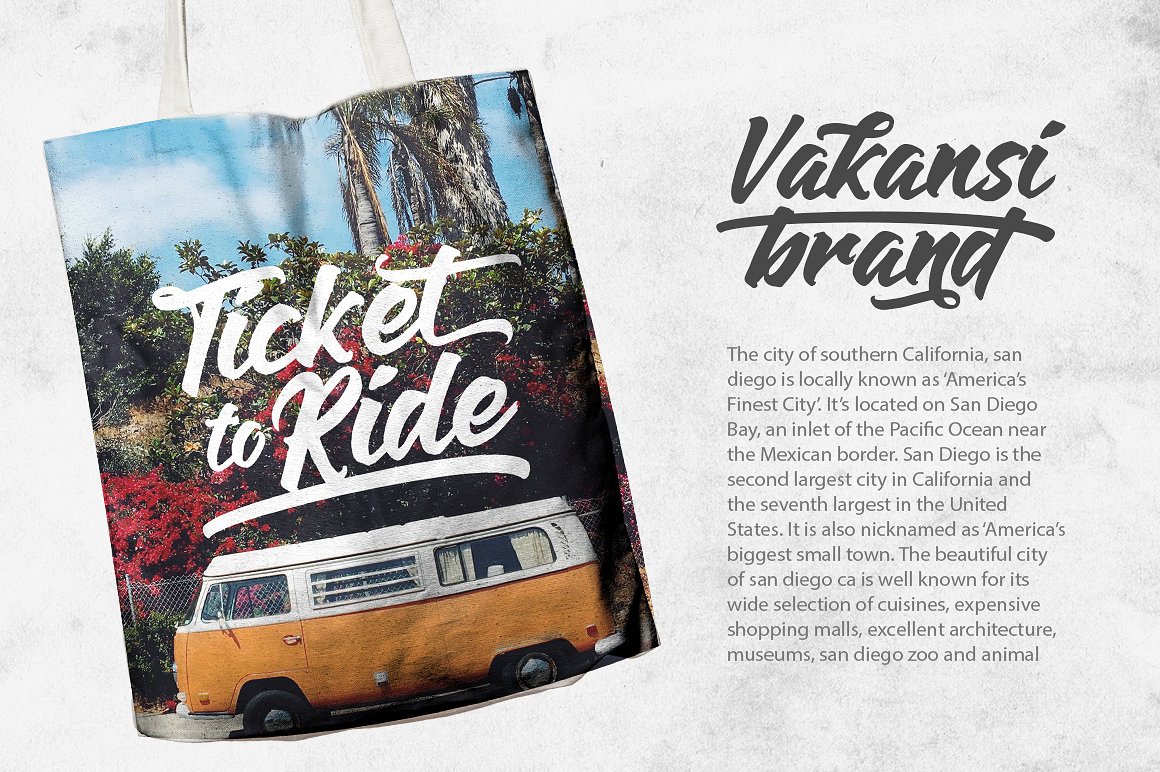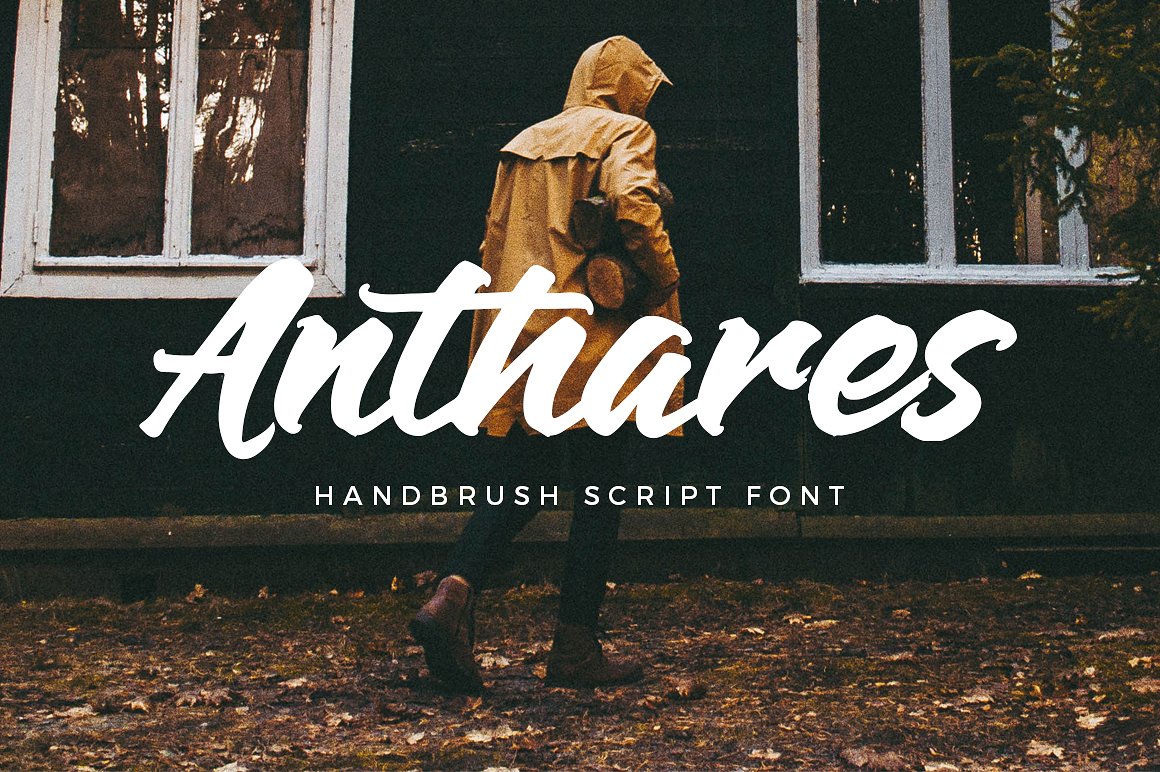
Anthares Handbrush
Anthares Handbrush Font
Introducing Anthares, the new handbrush font with dramatic movement and good styles, It’s allowing you to create amazing handlettering typography in an instant.